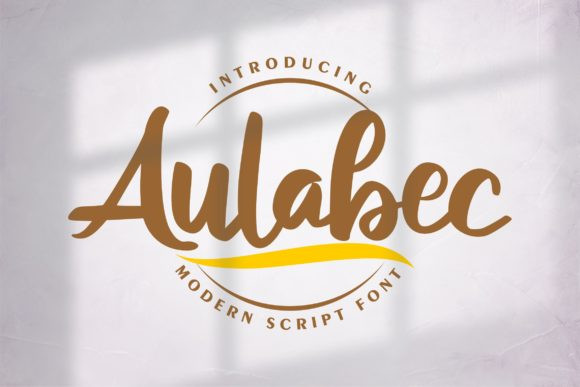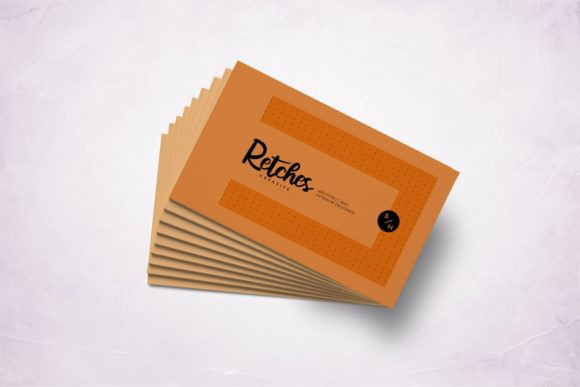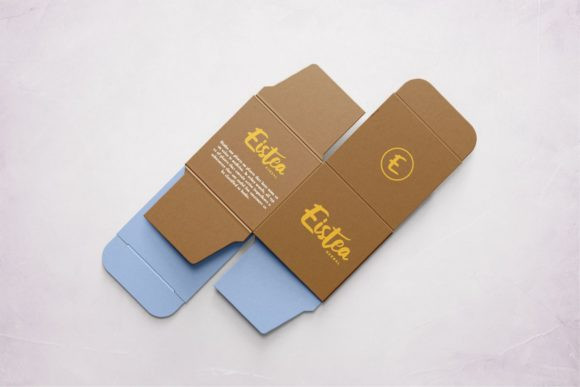
Aulabec Font
Aulabec is a gorgeous and bold handwritten font, crafted to give your headlines and logotype projects a stylish touch. This font reads as strong, confident, and dynamic and can add tons of nostalgic character to your designs.